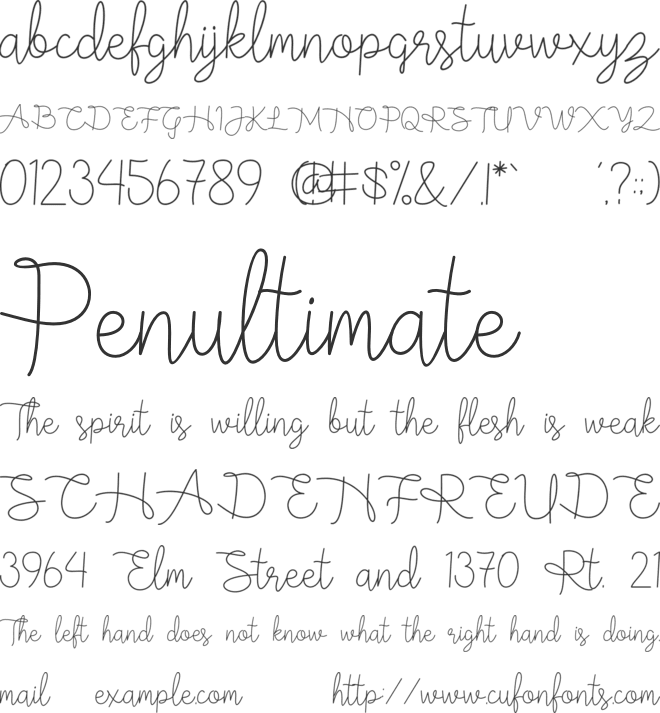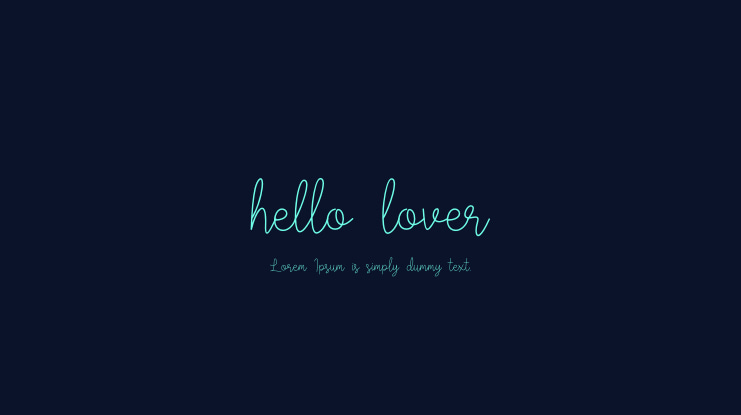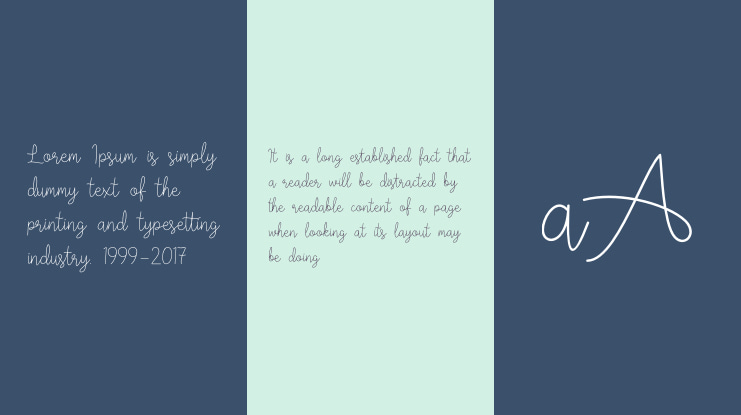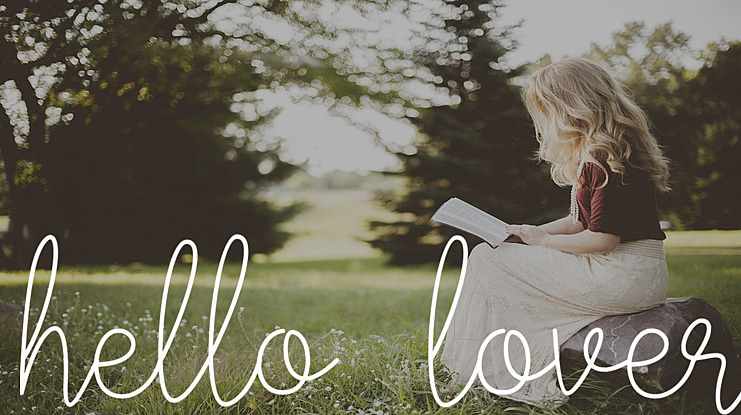
hello lover Font
hello lover is a modern monoline font, which we created because it was inspired by a string line of love and slightly emphasized an artistic and elegant impression, and
It is perfect for branding projects, logos, wedding designs, social media posts, advertisements, product packaging, product designs, label, photography, watermark, invitation, stationery and any projects that requires a handwritten taste.